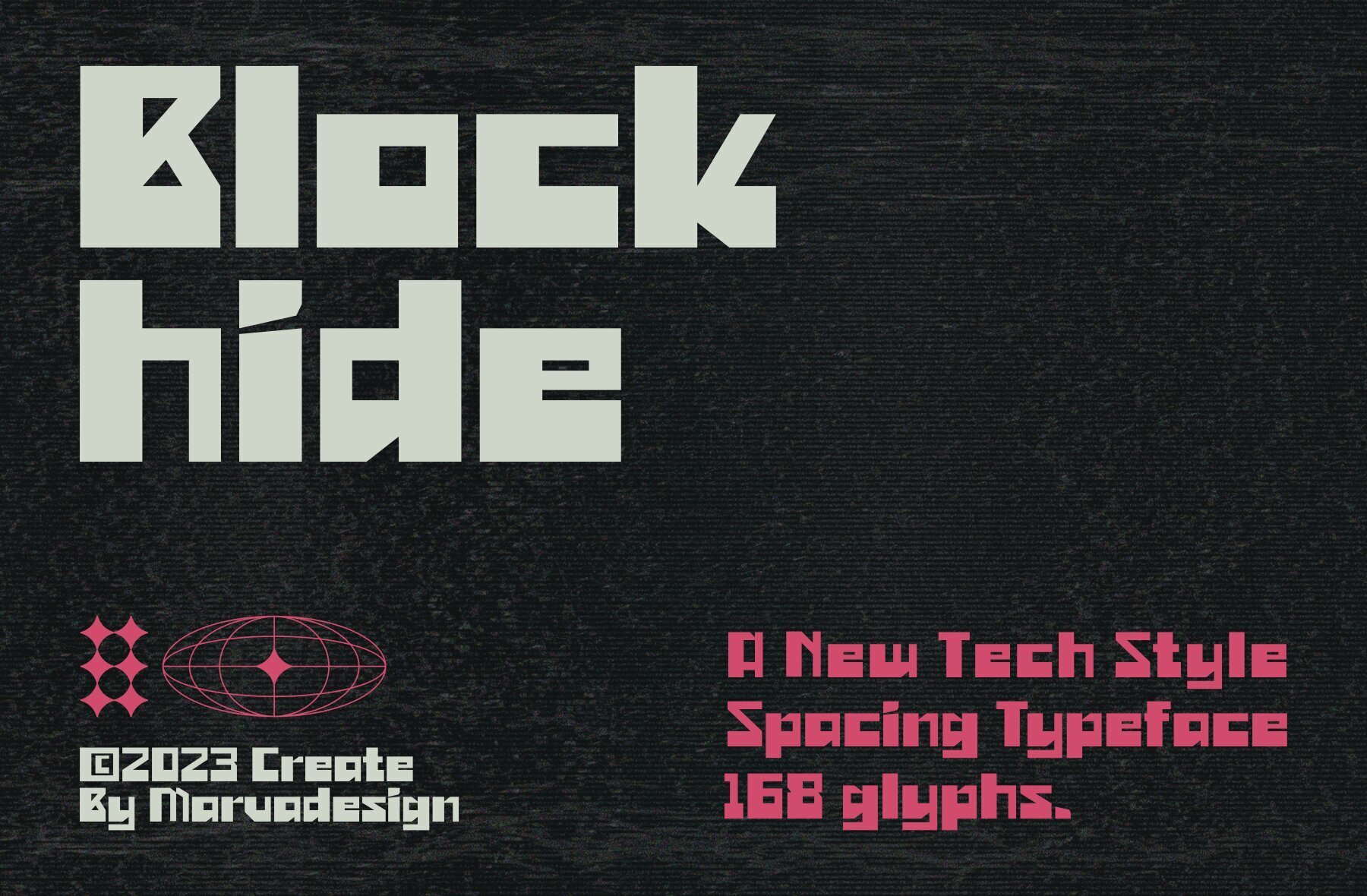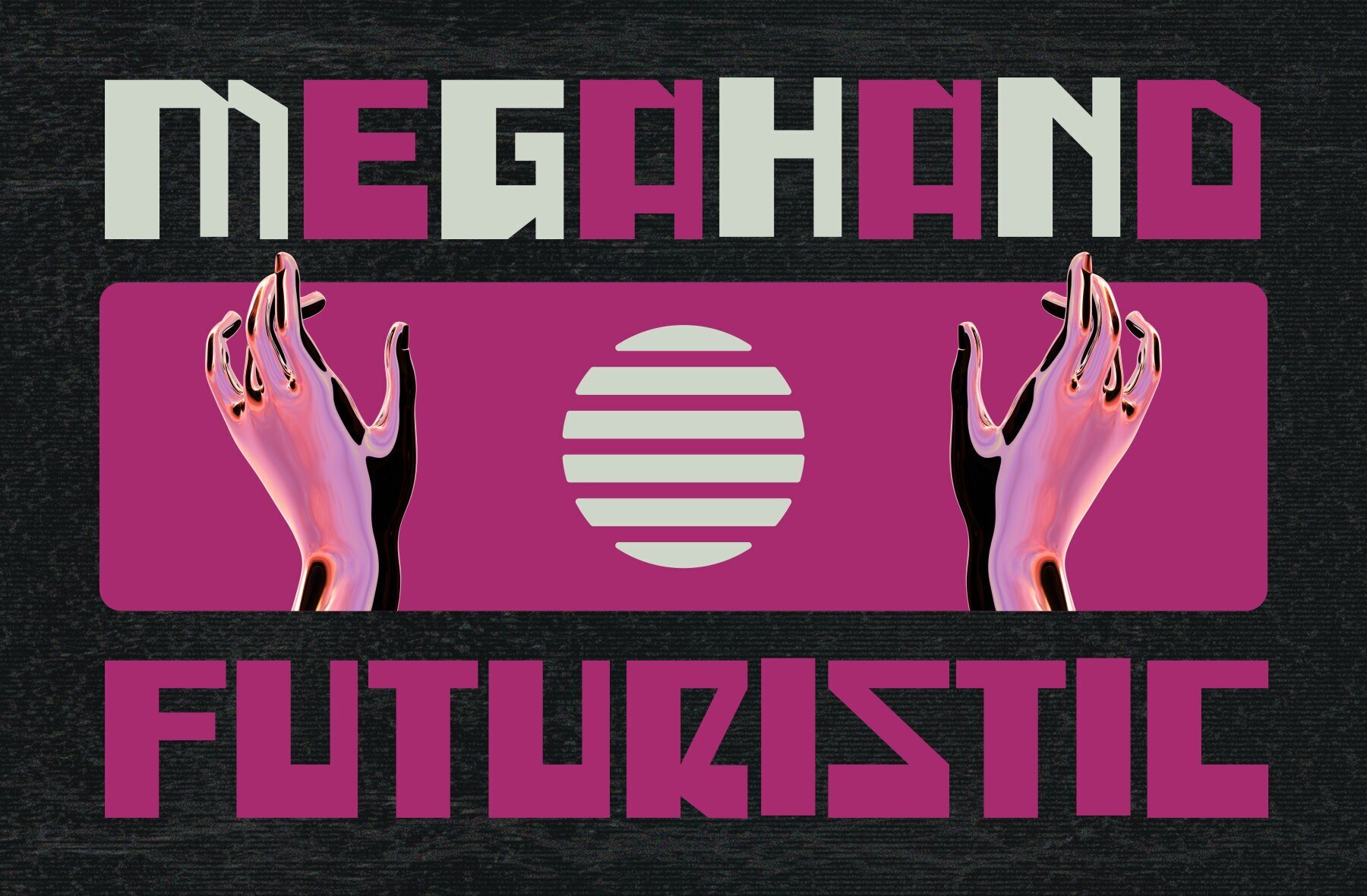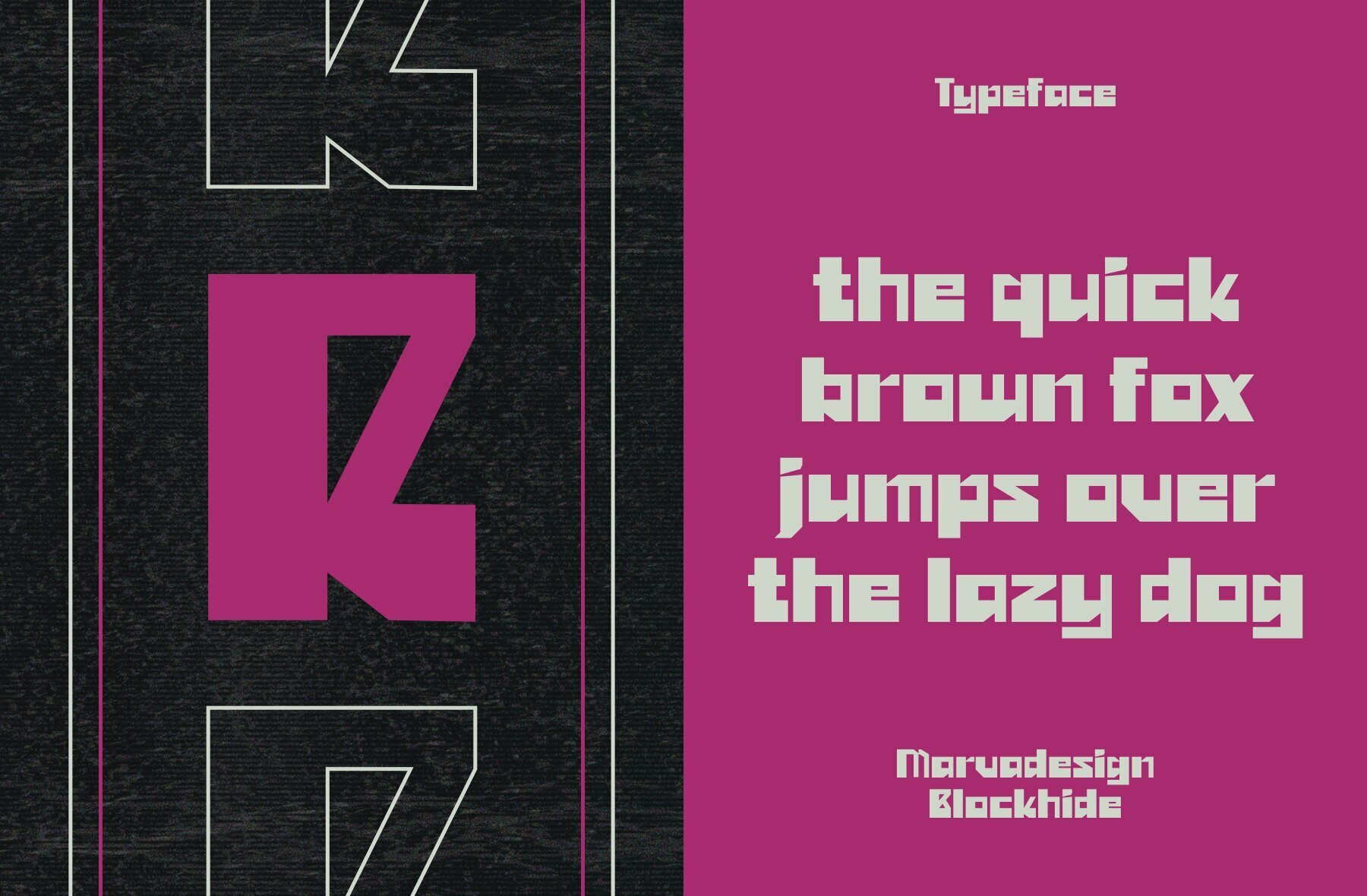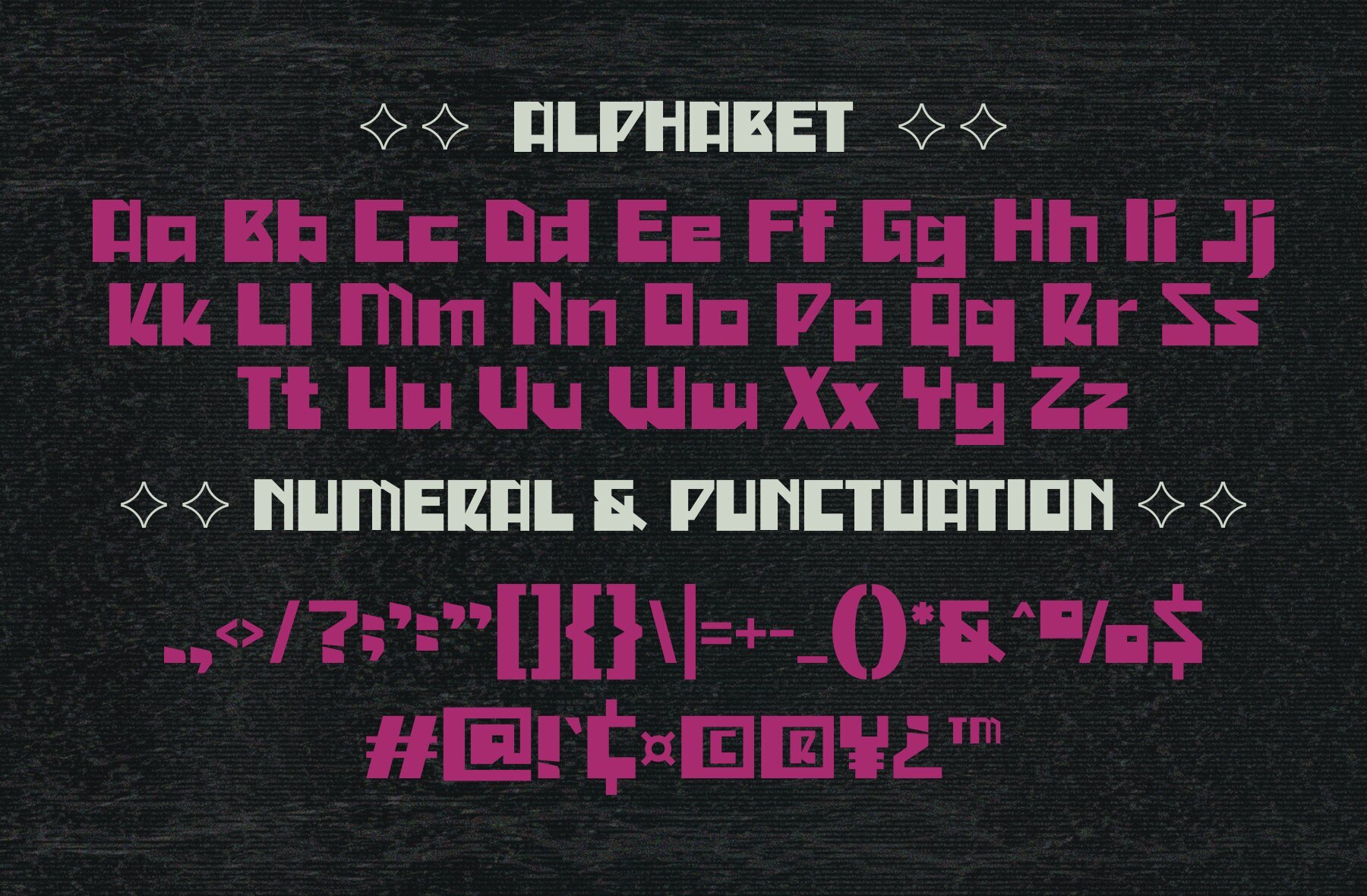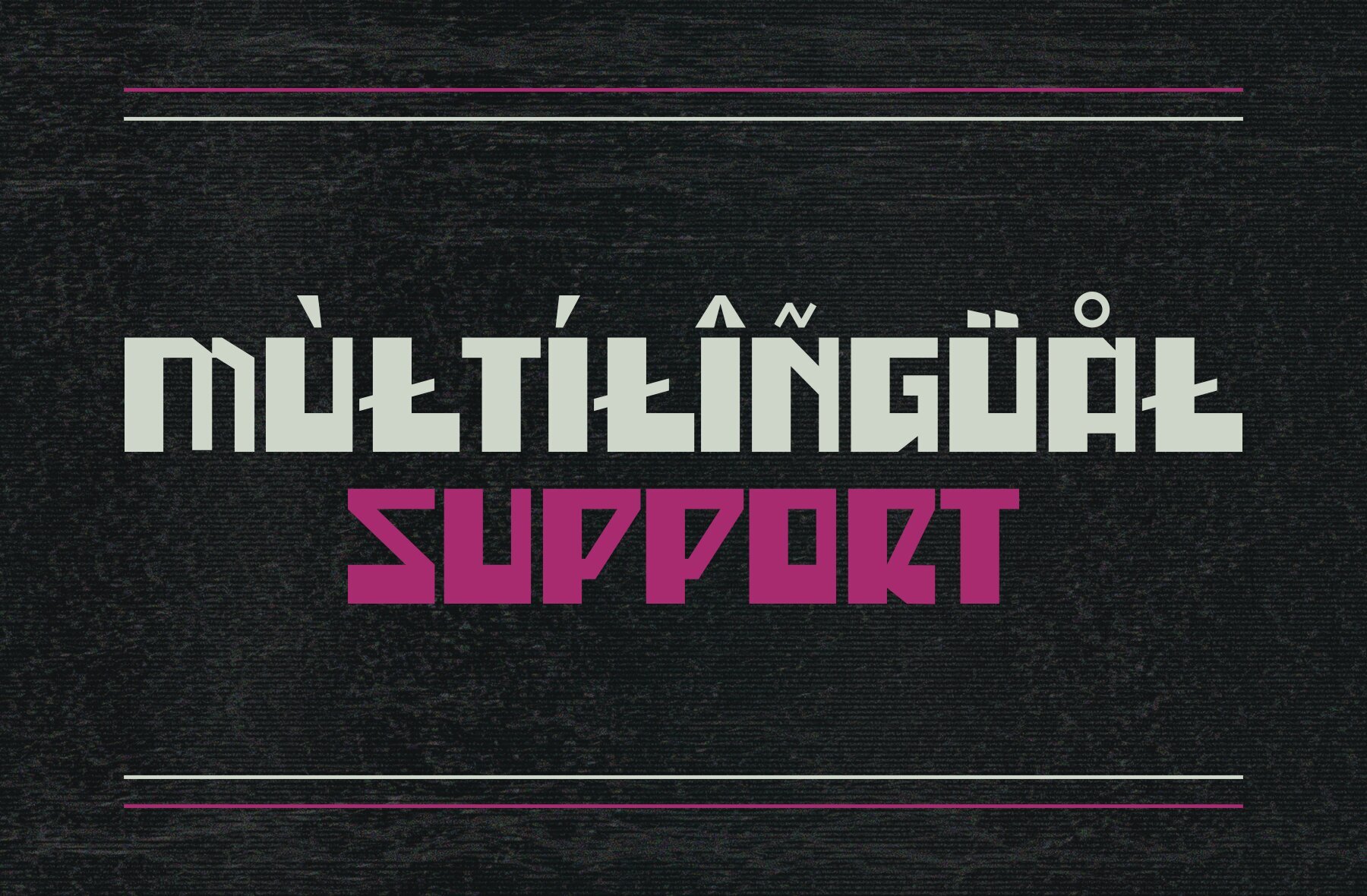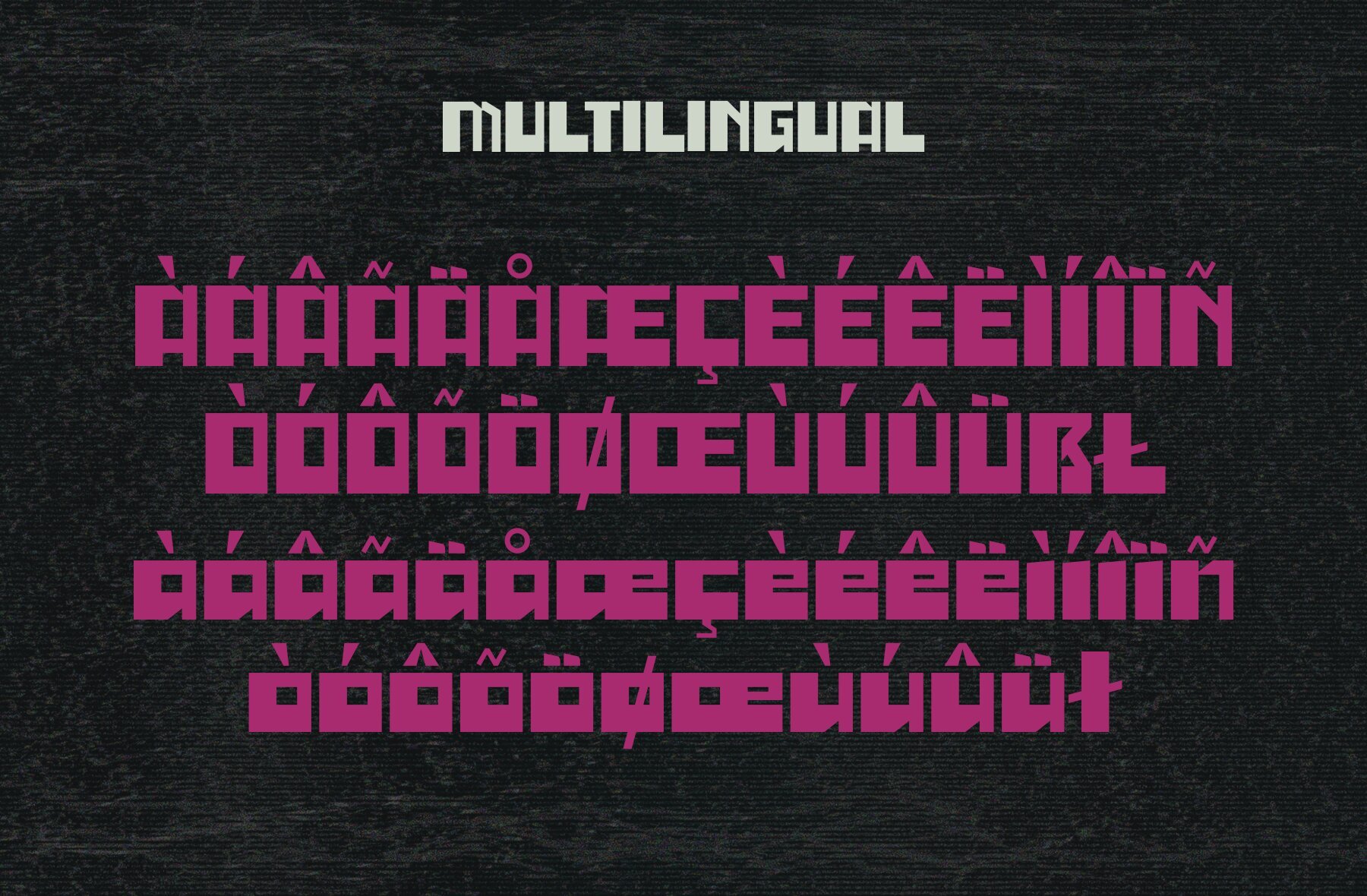
Blockhide Font
Blockhide Regular
Blockhide Font is a modern sans serif with a bold and authentic look, ideal for various display applications. This versatile font is perfect for branding projects, including logos, template designs, and product presentations, delivering outstanding performance across a wide range of contexts.Blockhide: Modern Sans Serif Font with Bold Display